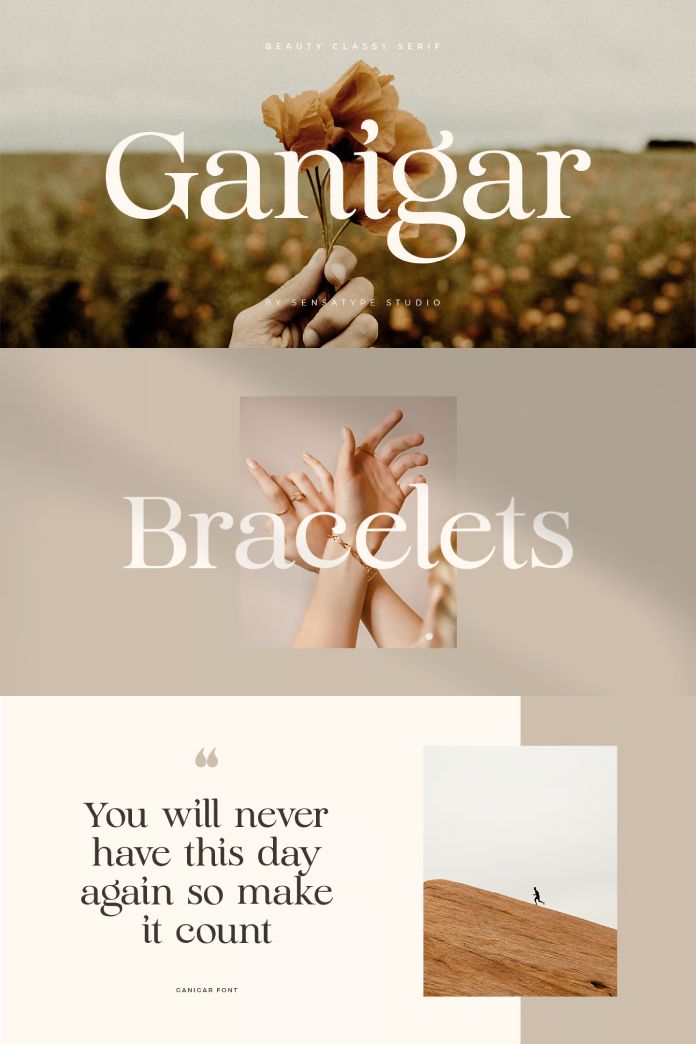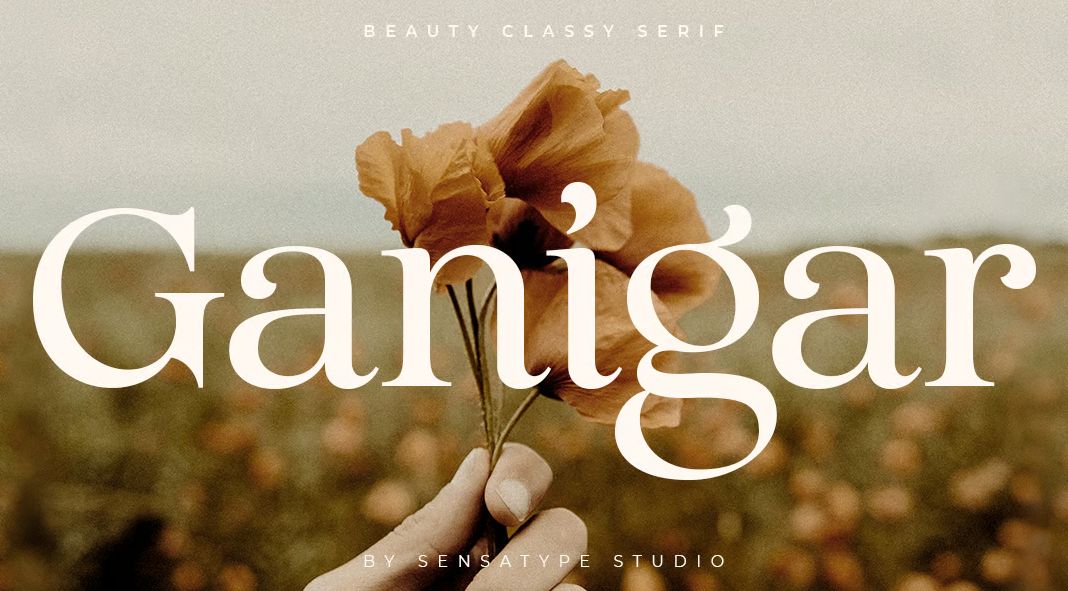
Font Review: A Luxurious Journey with The Ganigar Typeface.
Ganigar Typeface, crafted by Sensatype Studio, promises to elevate luxury-themed projects with its elegant, modern, and unique design. With a focus on versatility and seamless integration into various creative applications, this sans-serif font caters to magazines, social media, branding, logos, and more. As an ardent lover of typography and design, I had the pleasure of exploring the Ganigar typeface and putting it through its paces.
Ganigar Style Font by Sensatype Studio
Design (★★★★☆): The first impression of Ganigar Typeface is undoubtedly captivating. Its graceful curves, refined strokes, and distinctive features instantly convey a sense of luxury and sophistication. The font exhibits an excellent balance between modern aesthetics and classic elegance, making it a versatile choice for multiple design projects.
Versatility (★★★★☆): Sensatype Studio deserves applause for creating a typeface that adapts seamlessly to various projects. Whether it’s a high-end magazine layout, a luxurious brand logo, or social media graphics for an upscale event, Ganigar Typeface shines with grace and charm.
Legibility (★★★★☆): The font’s legibility is generally impressive, especially at larger font sizes. The clean lines and well-defined shapes contribute to its readability. However, when used at smaller sizes, some characters lose a bit of clarity, which may be a concern for projects that require extensive body text. Nevertheless, for headlines, captions, and titles, Ganigar Typeface conveys an air of sophistication that aligns perfectly with luxury branding.
Uniqueness (★★★★☆): In a crowded landscape of sans-serif fonts, Ganigar Typeface stands out with personality and individuality. The design choices by Sensatype Studio demonstrate a keen eye for detail, crafting a font that feels exclusive and tailored for luxury-themed ventures.
Practicality (★★★★☆): As a typeface intended for luxury-themed projects, Ganigar performs exceptionally well. Its elegant demeanor exudes opulence and elevates the visual appeal of any design. However, due to its luxury-focused niche, it may not be the ideal choice for projects targeting broader audiences or industries outside the high-end market. Nonetheless, for its intended purpose, Ganigar Typeface delivers on its promise.
In conclusion, the Ganigar typeface by Sensatype Studio lives up to its claim of exuding luxury, elegance, modernity, and uniqueness. It offers designers a versatile toolset to elevate their projects, infusing them with sophistication and class. While the font’s design and uniqueness are commendable, minor inconsistencies and legibility concerns at smaller sizes prevent it from achieving a perfect score. Nevertheless, for luxury-themed ventures, Ganigar Typeface stands as an excellent choice, ready to weave its charm across magazines, social media, branding, logos, and many more luxury-inspired endeavors.